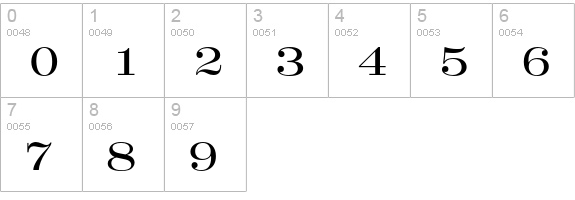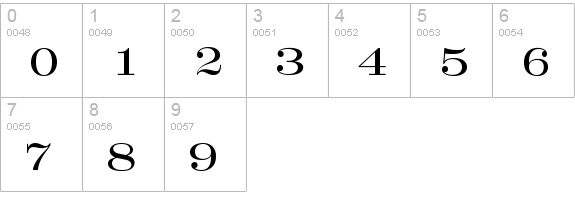
FC-CrawModern-Regular is the standard, neutral variant in the FC typeface family \xE2\x80\x94 well suited to general body text, paragraphs, and standard typographic work.
FC-CrawModern-Regular is a modern and stylish font that exudes elegance and sophistication. Its clean lines and contemporary design make it perfect for a wide range of design projects, from branding to editorial layouts. This font strikes the perfect balance between professionalism and creativity, making it a versatile choice for designers looking to make a statement. The FC-CrawModern-Regular font is available for free download at FontsMarket.com, making it easily accessible to anyone looking to add a touch of class to their designs. Whether you're working on a website, a print advertisement, or a social media graphic, this font is sure to elevate your project and leave a lasting impression on your audience. Download FC-CrawModern-Regular today and take your designs to the next level!